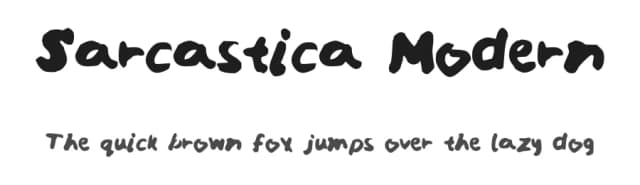
About Sarcastica Font
Sarcastica Font Family! BY ME! Make sure to use those fonts when being "Sarcastic" :D
Or just use them whenever you want!
Please note that I created this font from my very own handwriting, and this font is NOT copied from somewhere.
Sarcastica Font
by Lttg